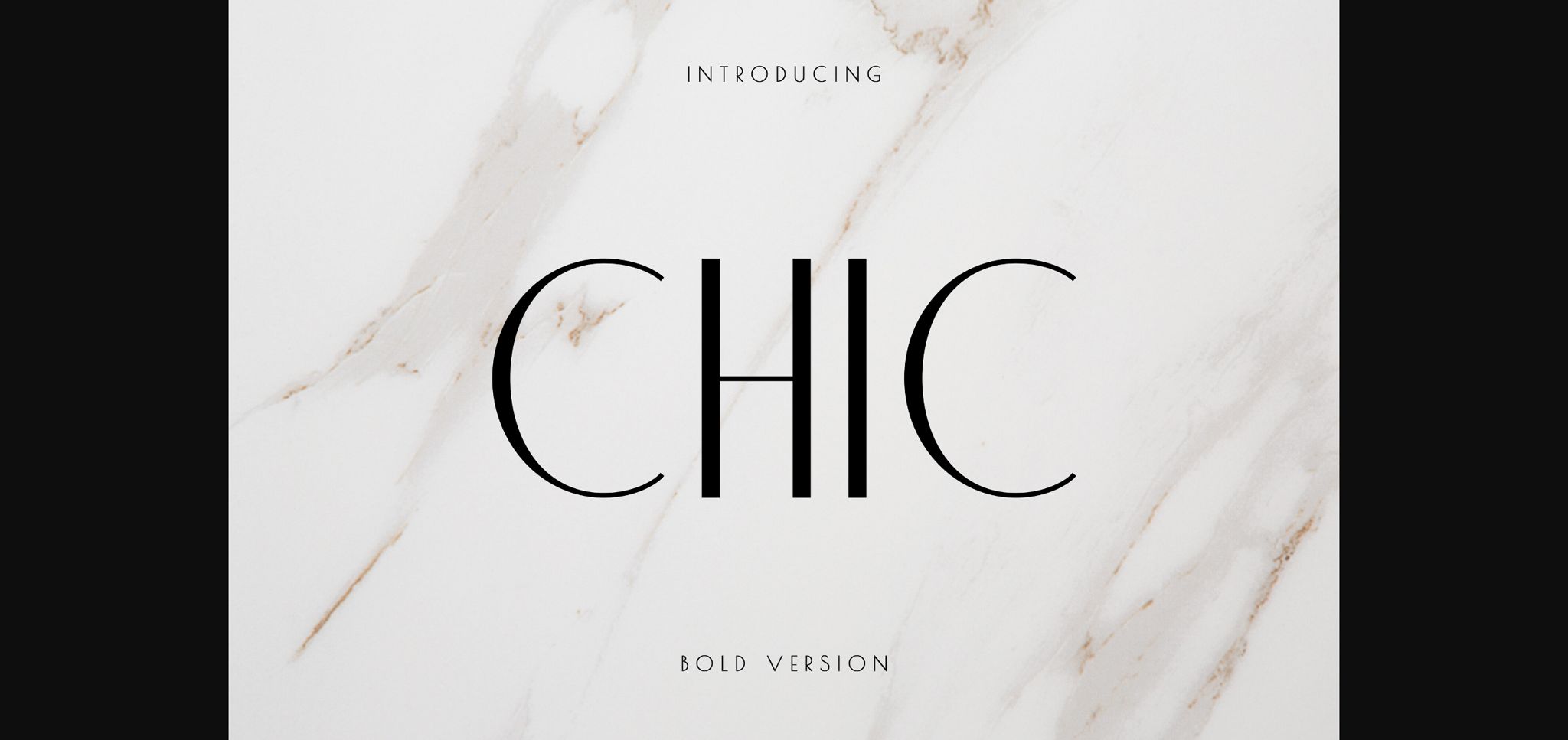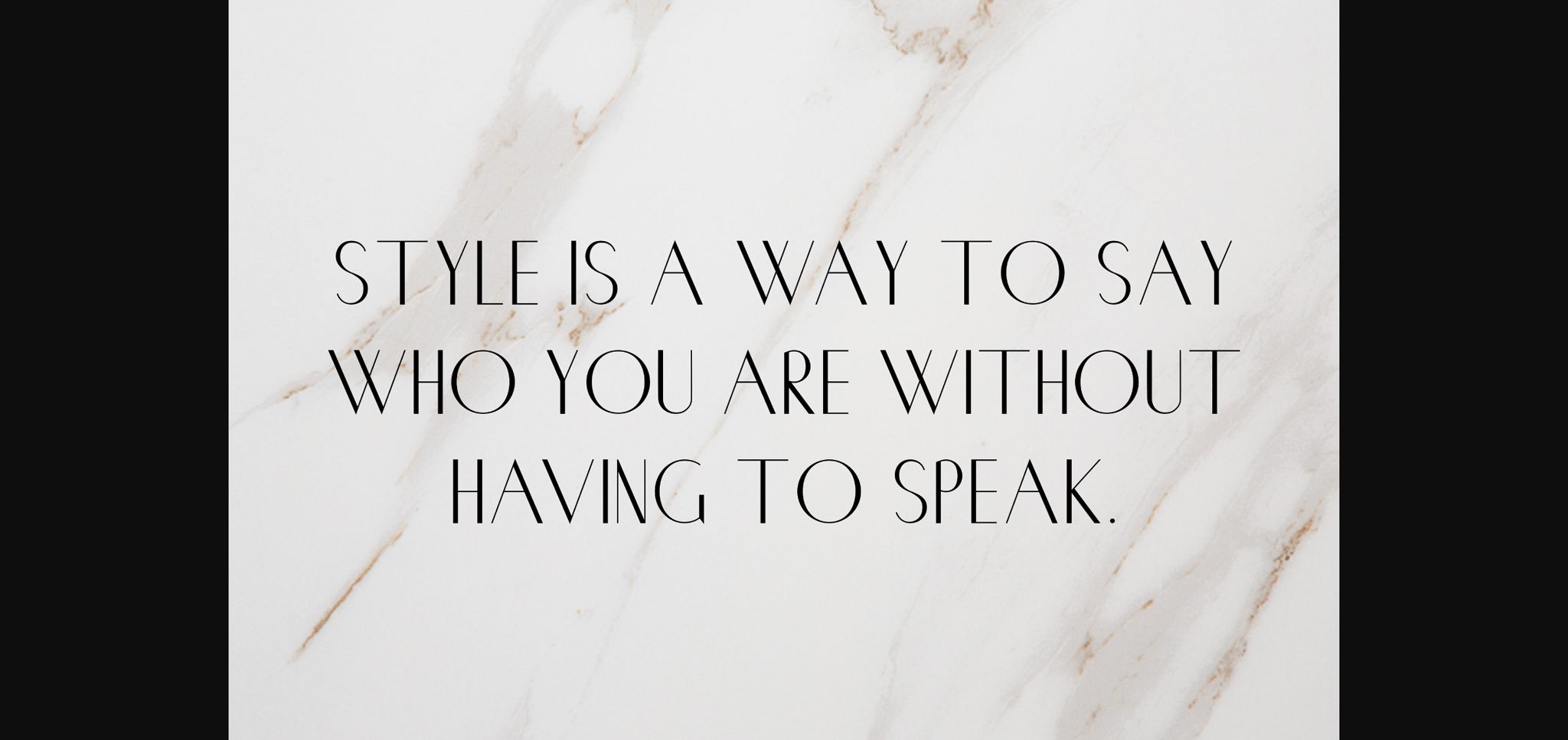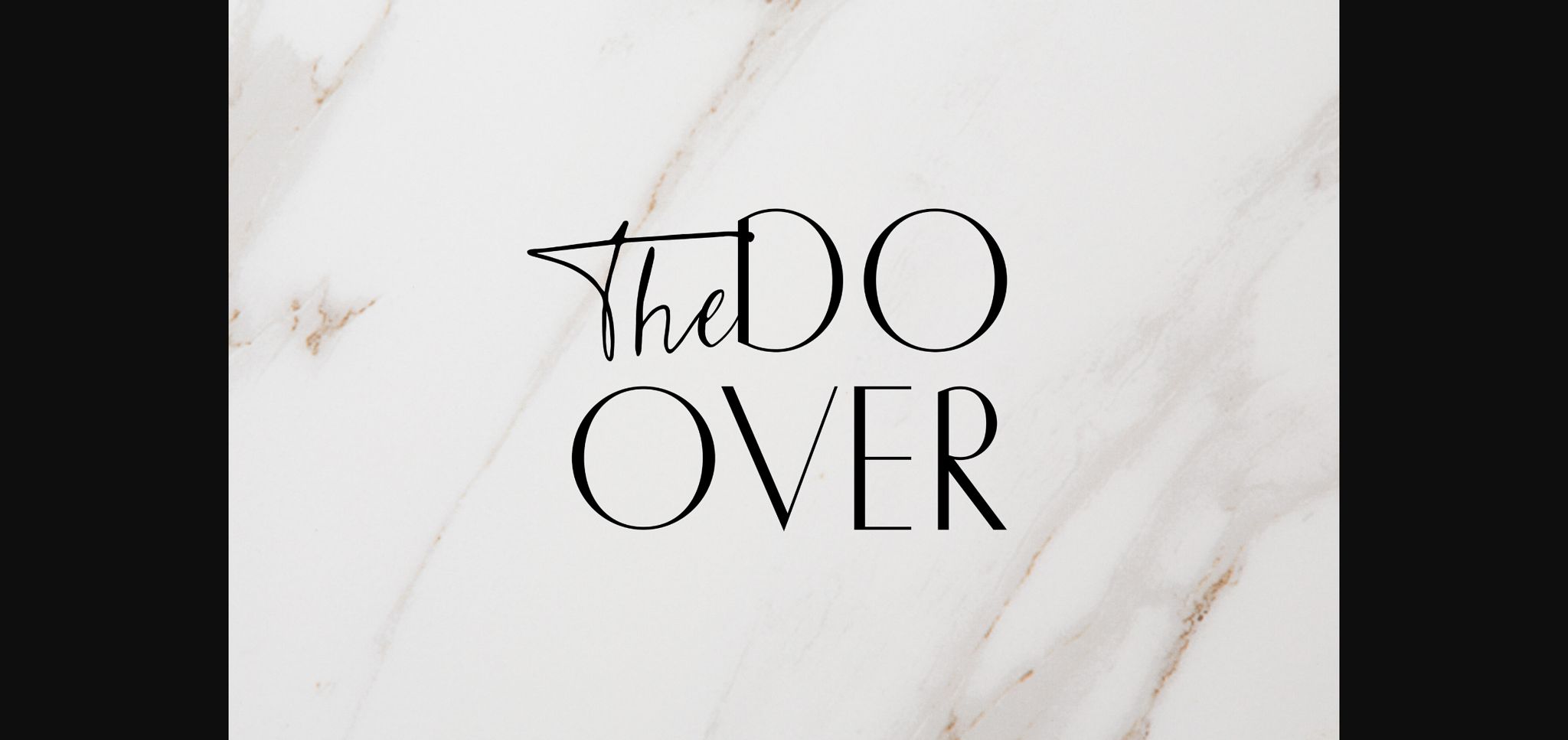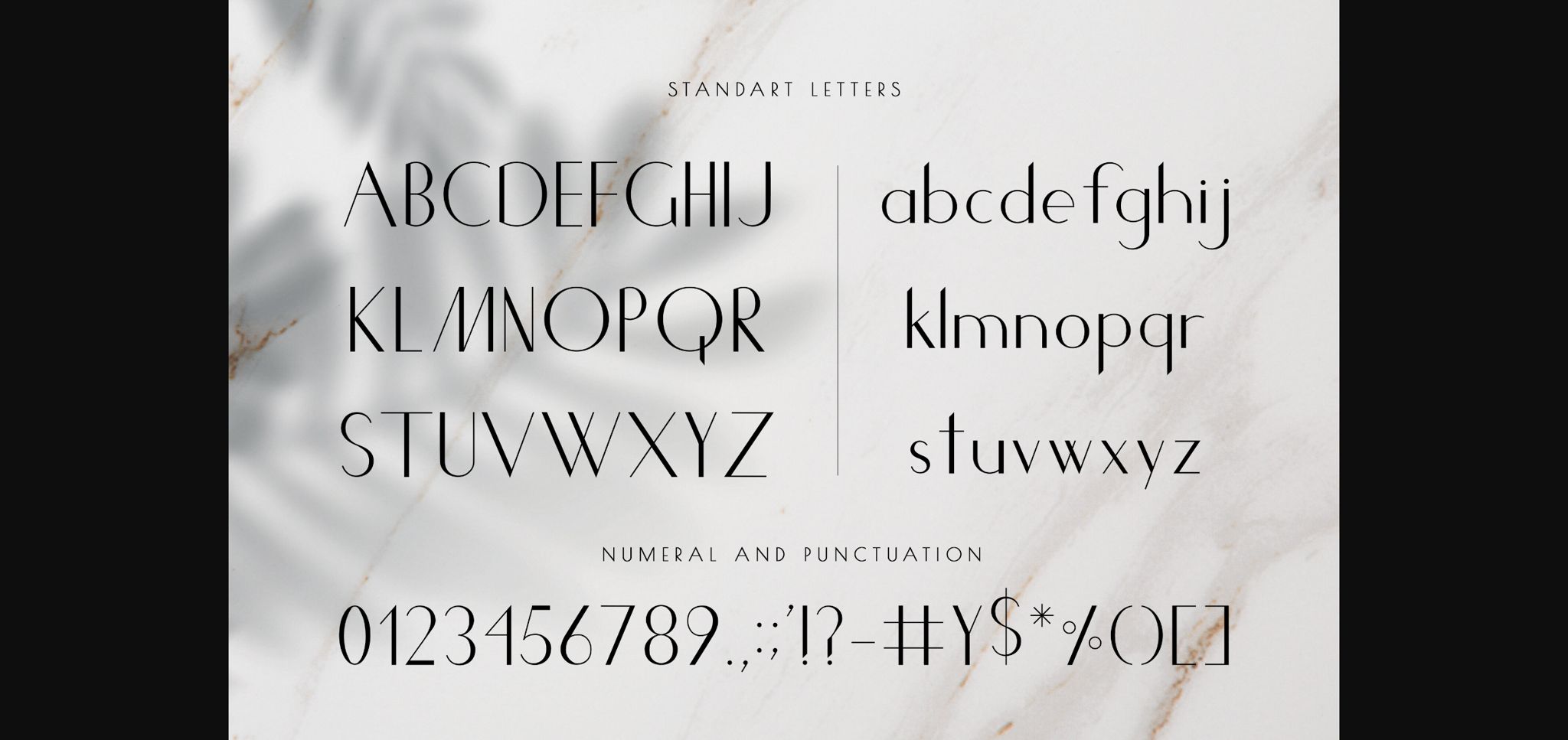
About Chic Font
Chic Font is a graceful and elegant sans serif typeface. Its stylish simplicity adds a touch of sophistication to your designs. Perfect for creating a sleek and modern look, Chic Font effortlessly combines elegance with clarity. Whether for logos, headings, or any project that demands a refined aesthetic, choose Chic for a tasteful and timeless appearance.